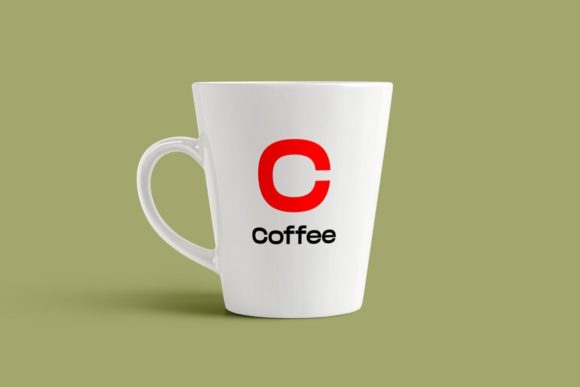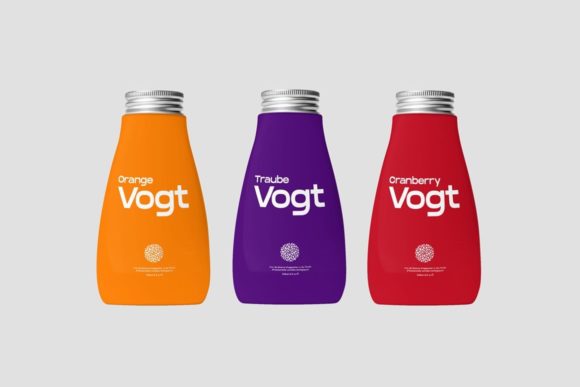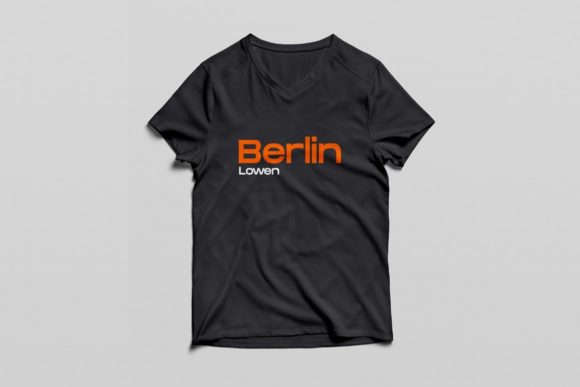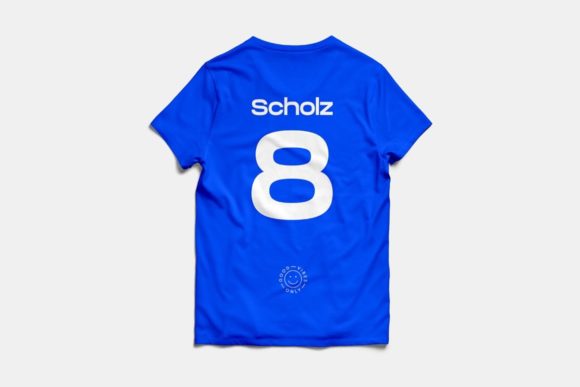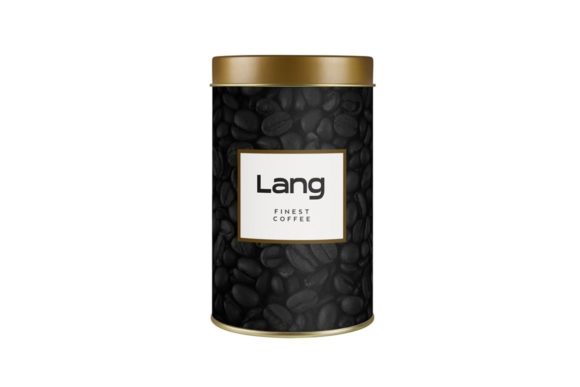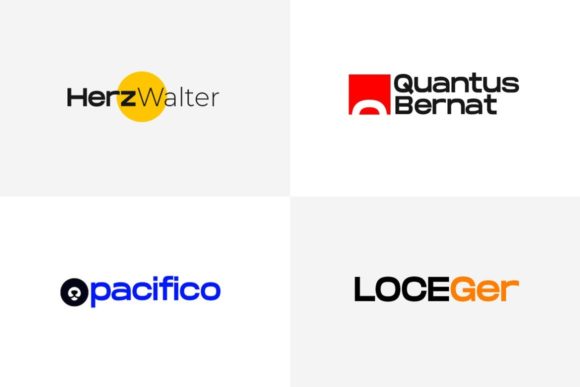
The Designer’s Delight: Unpacking the Elegance of Ego Font
I’ll never forget the time I was working on a branding project for a trendy new coffee shop. The client wanted a font that was modern, sleek, and would stand out on their packaging and marketing materials. I spent hours scouring through font libraries, but nothing seemed quite right. That was until I stumbled upon Ego Font. ✨
It was love at first sight! The clean lines, the minimalistic design, and the versatility of Ego Font won me over. I knew immediately that it was the perfect fit for my client’s project. In this article, I’ll share my experience with Ego Font, its features, and how to make the most of it in your designs.
An Honest Review of Ego Font
- ✨ Minimalist design: Ego Font boasts a clean and neat design that works beautifully for display text.
- ✅ High versatility: It can be paired with a wide range of projects, from branding and packaging to posters and social media graphics.
- 💡 Ease of use: Ego Font is incredibly easy to read, even at smaller sizes.
While Ego Font is an excellent choice for many projects, there are a few things to keep in mind:
- 🤔 Limited suitability for body text: Due to its minimalist design, Ego Font may not be the best choice for longer blocks of text.
- ⚠️ Glyph support: While Ego Font comes with a range of glyphs and OpenType features, some users may find the selection limited compared to other fonts.
A Practical Guide to Using Ego Font
- Experiment with Ego Font’s OpenType features, such as stylistic alternates, to add visual interest to your text.
The Story Behind Ego Font
Ego Font was designed with the goal of creating a clean, modern, and highly versatile display font. The designer sought to craft a font that would be both elegant and approachable, making it suitable for a wide range of projects. While the exact backstory of Ego Font may be unknown, its design reflects a deep understanding of typography and a passion for creating beautiful, functional fonts.
Q: What type of projects is Ego Font best suited for?
A: Ego Font is ideal for display text, making it perfect for branding, packaging, posters, and social media graphics.
Q: Can I use Ego Font for body text?
A: While Ego Font is easy to read, its minimalist design may not be the best choice for longer blocks of text. Consider using a font specifically designed for body copy.
Q: Does Ego Font come with OpenType features?
A: Yes, Ego Font includes a range of OpenType features, such as stylistic alternates and glyphs, which can add visual interest to your text.